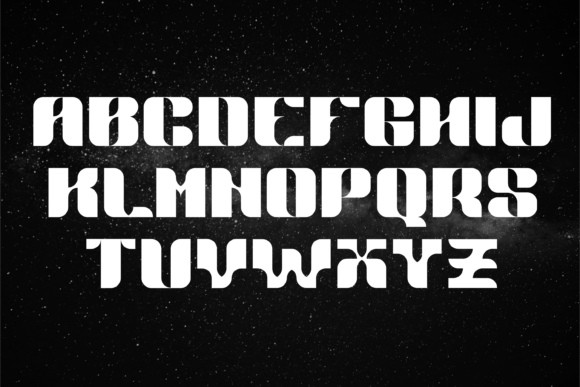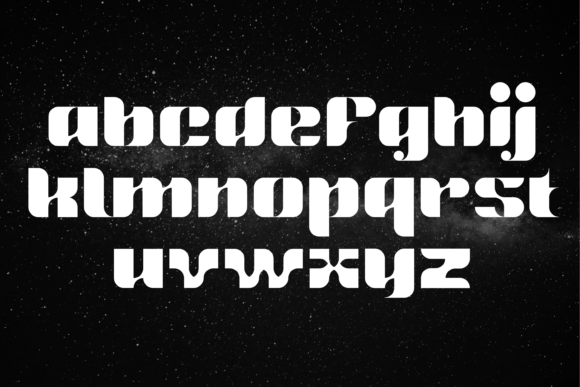
Introducing Demodulator Font: The Futuristic Typeface for Impactful Designs
In the world of typography, fonts play a crucial role in conveying the tone and personality of a design. For designers and crafters looking to add a touch of futurism and sophistication to their work, the Demodulator Font is an excellent choice. This modular variable font boasts a unique, streamlined aesthetic that’s perfect for posters, headings, and other design elements where you want to make a statement.
What is Demodulator Font?
Demodulator is a cutting-edge, modular variable font designed to give your designs a futuristic look and feel. Its sleek, modern aesthetic makes it an ideal choice for projects that require a bold, attention-grabbing typeface. With its variable font capabilities, Demodulator offers a high degree of flexibility, allowing you to experiment with different weights, widths, and styles to achieve the perfect look for your design.
Key Features of Demodulator Font
- Modular Design: Demodulator’s modular design gives it a unique, futuristic appearance that’s perfect for designs that require a bit of edge.
- Variable Font: As a variable font, Demodulator offers a wide range of weights, widths, and styles, giving you the flexibility to experiment with different looks and feels.
- Streamlined Aesthetic: Demodulator’s streamlined design makes it perfect for posters, headings, and other design elements where you want to make a bold statement.
Use Cases for Demodulator Font
So, where can you use Demodulator Font to add some extra impact and character to your designs? Here are a few ideas to get you started:
- Posters and Flyers: Demodulator’s bold, futuristic aesthetic makes it perfect for posters and flyers that need to grab attention.
- Headings and Titles: Use Demodulator to add a touch of sophistication and elegance to your headings and titles.
- Branding and Logo Design: Demodulator’s unique design makes it an excellent choice for branding and logo design projects that require a bit of edge.
Tips for Using Demodulator Font
To get the most out of Demodulator Font, here are a few tips to keep in mind:
- Experiment with Different Weights and Styles: Don’t be afraid to experiment with different weights, widths, and styles to find the perfect look for your design.
- Pair with Other Fonts: Demodulator pairs well with a variety of other fonts, so don’t be afraid to try pairing it with other typefaces to create a unique look.
- Use for Display Text: Demodulator is perfect for display text, such as headings and titles, where you want to make a bold statement.
In conclusion, Demodulator Font is a powerful, futuristic typeface that’s perfect for designers and crafters looking to add a touch of sophistication and elegance to their work. With its modular design, variable font capabilities, and streamlined aesthetic, Demodulator is an excellent choice for posters, headings, and other design elements where you want to make a statement. So why not give Demodulator a try and see how it can elevate your designs?